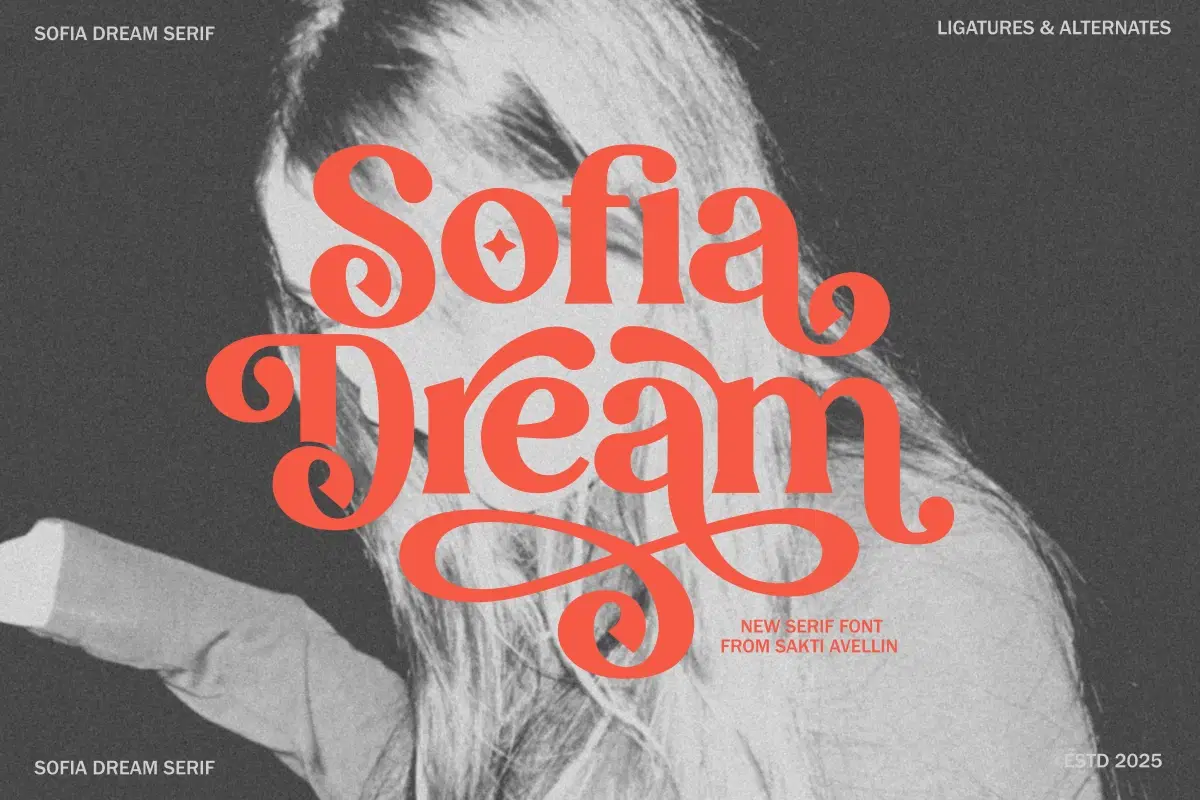
Sofia Dream is an exquisite and modern serif font designed to bring a touch of timeless elegance and high-end sophistication to your creative projects. This stylistic display typeface features a stunning array of ligatures and alternates, allowing you to create unique, interlocking letterforms with graceful, flowing swashes. Its high-contrast strokes and refined silhouette make it the perfect choice for luxury branding, boutique logos, elegant wedding invitations, and premium editorial layouts. Whether you are designing for a fashion magazine or high-end product packaging, Sofia Dream delivers a chic and professional aesthetic that truly stands out.